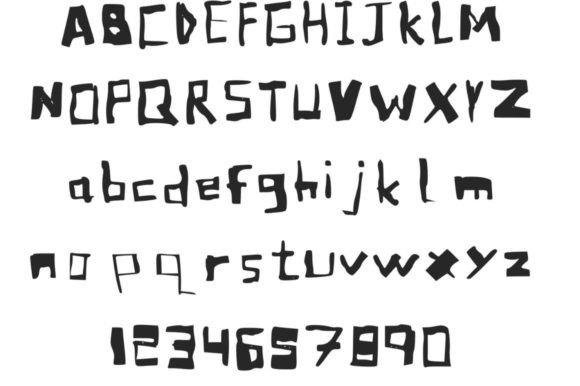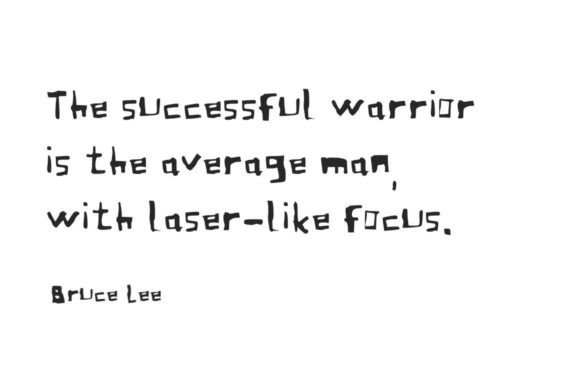
Introduction to Morning Paper Font
Morning Paper is a unique textured display typeface based on torn paper.
Whether youโ€™re using it for crafts, digital design, presentations, or making greeting cards, this font has the potential to become your favorite go-to font, no matter the occasion .
Key Features of Morning Paper Font
Why Choose Morning Paper Font?
Morning Paper Font offers exceptional quality and versatility, making it a valuable addition to your design toolkit. Whether you’re creating for personal projects or commercial use, Morning Paper Font delivers professional results.